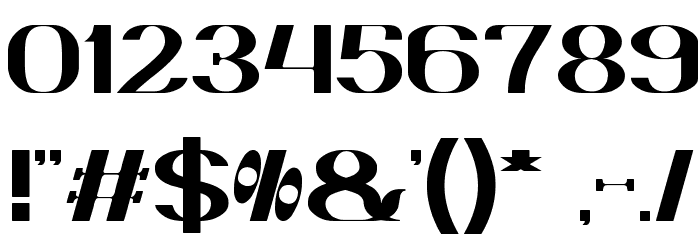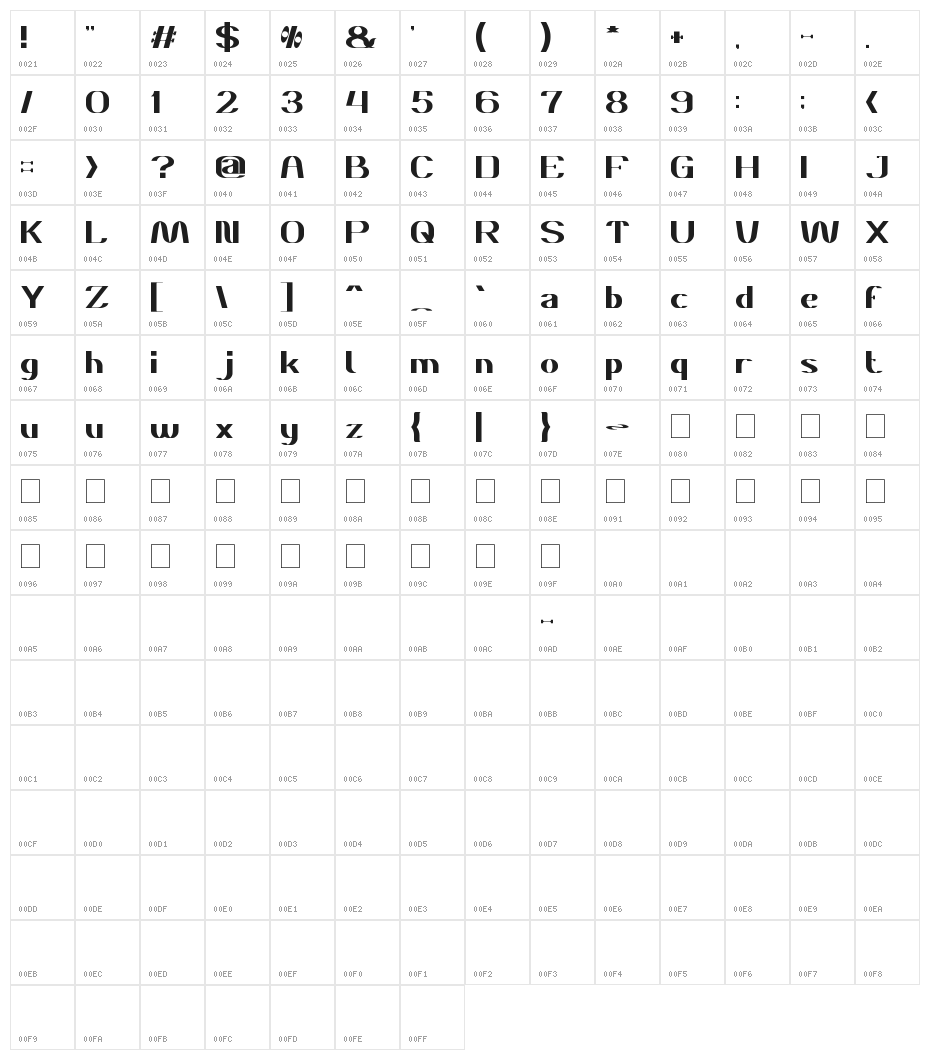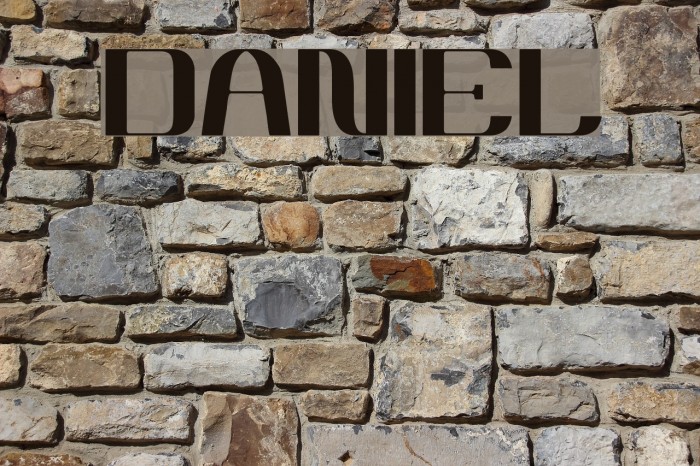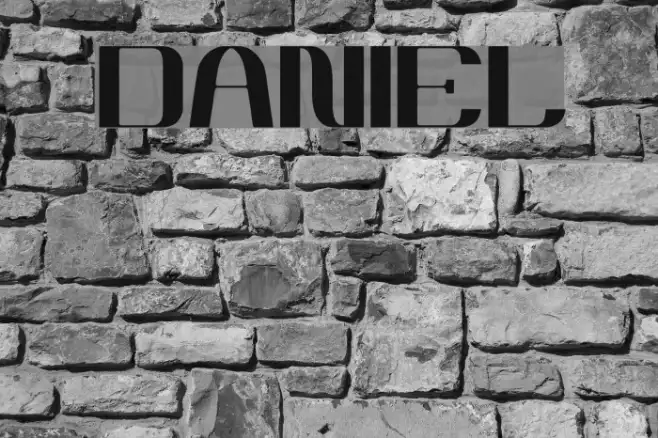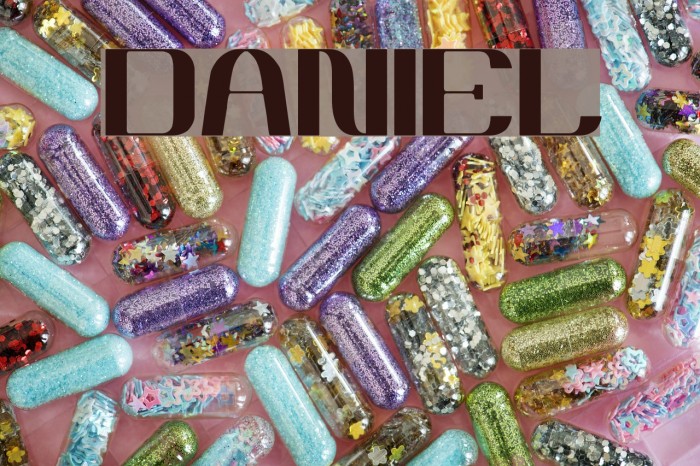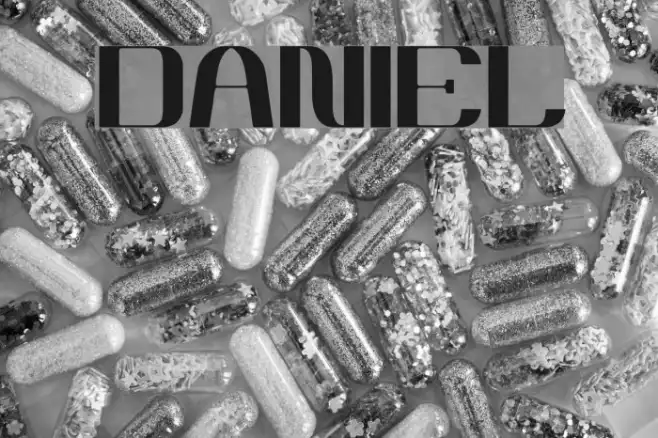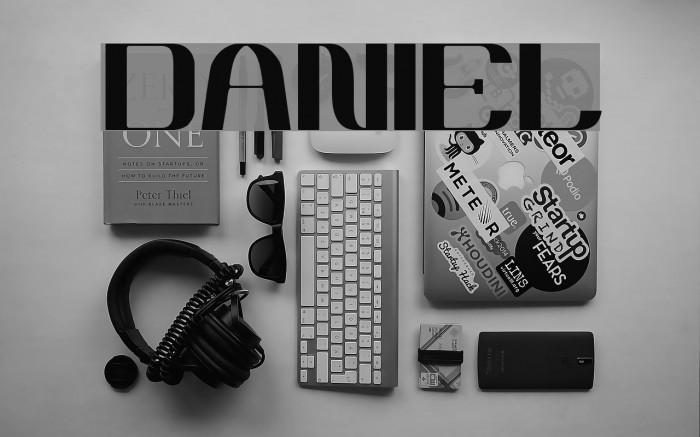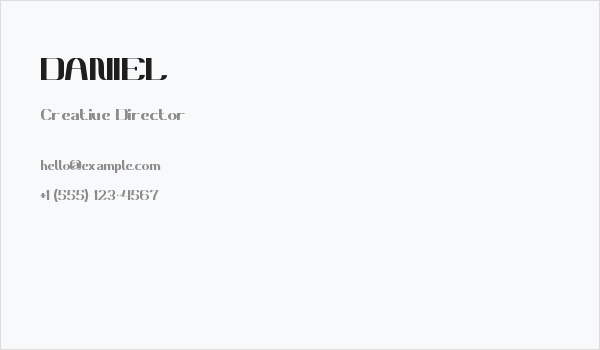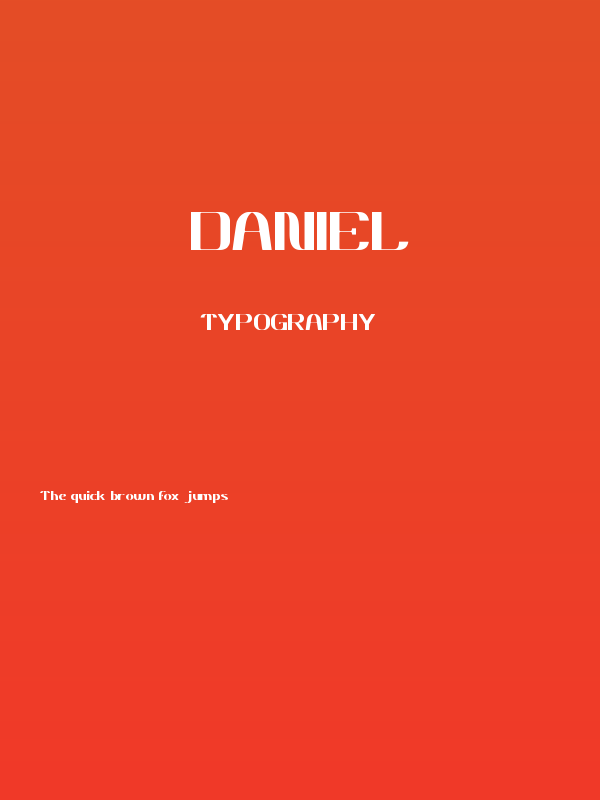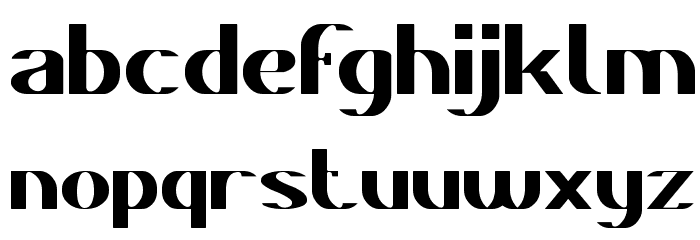
DANIEL Font
DANIEL Description
This font features a bold and striking design with a modern flair. The characters are crafted with a unique blend of sharp angles and smooth curves, creating a dynamic and eye-catching appearance. The uppercase letters exhibit a strong presence with wide, geometric shapes, while the lowercase letters maintain a consistent style with slightly more rounded forms. The numerals are bold and easily readable, complementing the overall aesthetic. Special characters are designed with the same attention to detail, ensuring a cohesive look across all glyphs. This font's distinct style makes it suitable for a variety of creative projects.